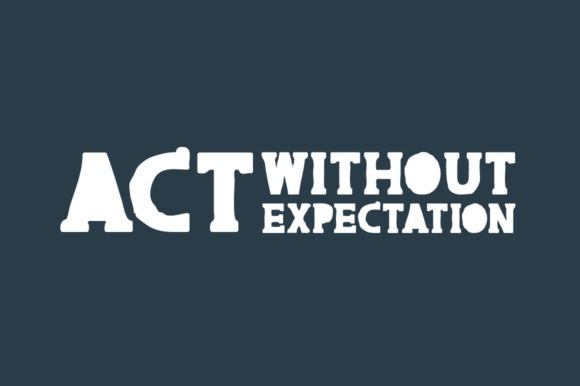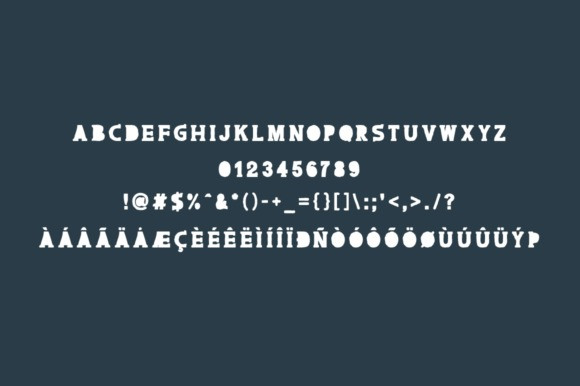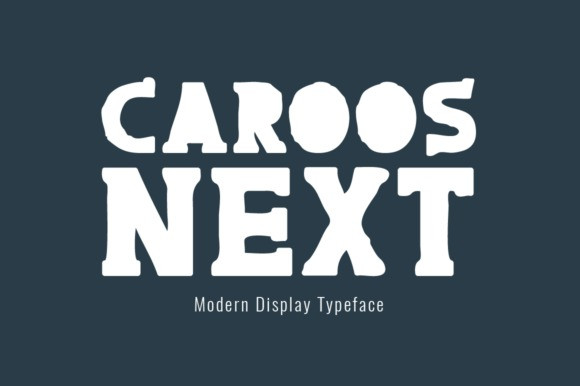
Caroos Next Display Font
The Caroos Next is a brand new modern display font. It’s perfectly suited for stationery, logos, t-shirts, papers, print designs, website headers, photo frames, flyers, music covers, posters, image sliders and much more.